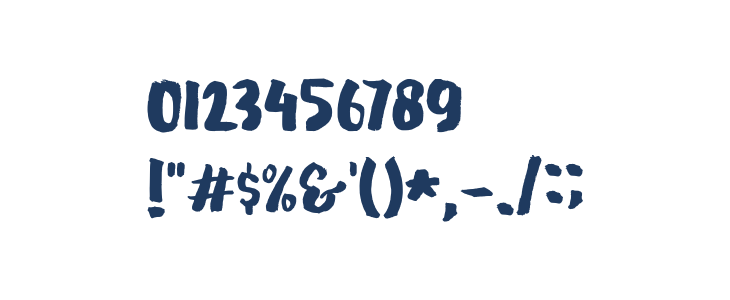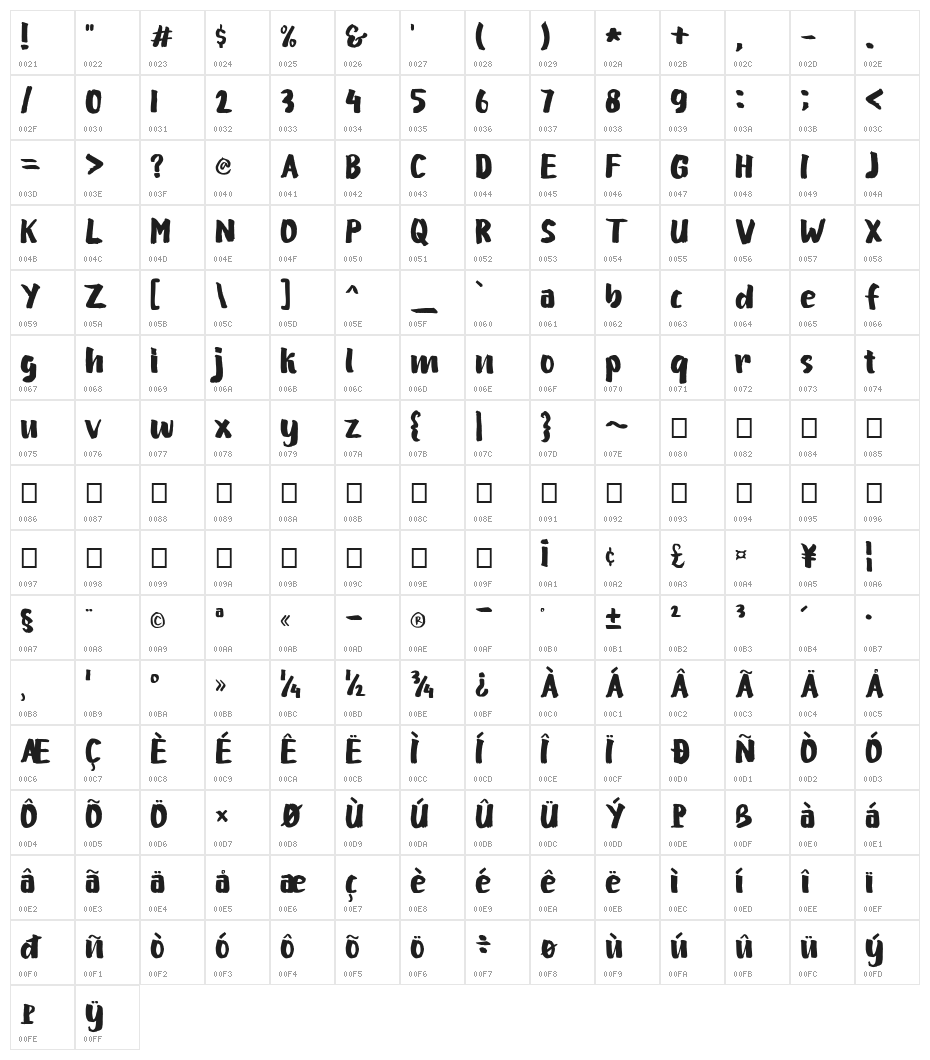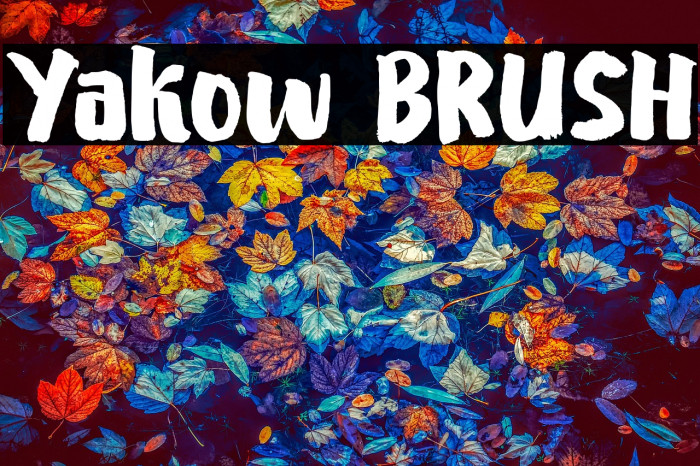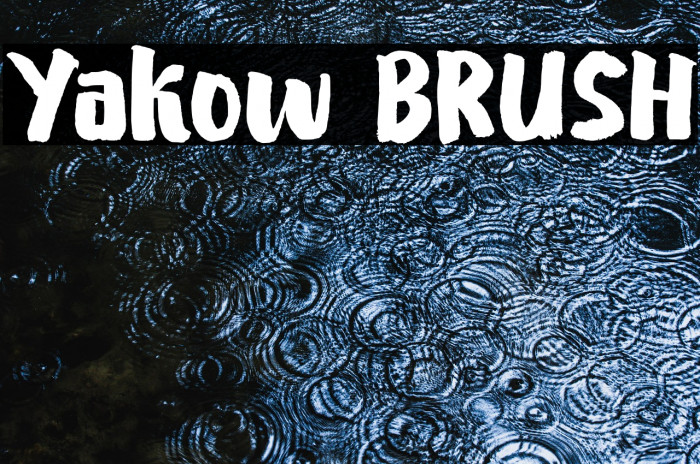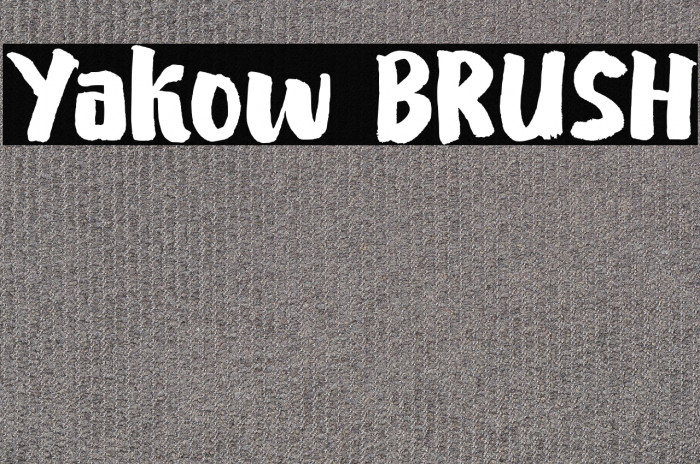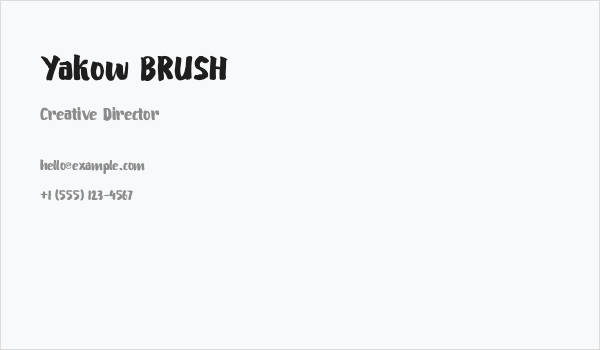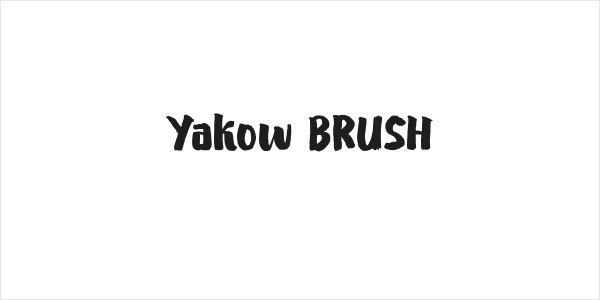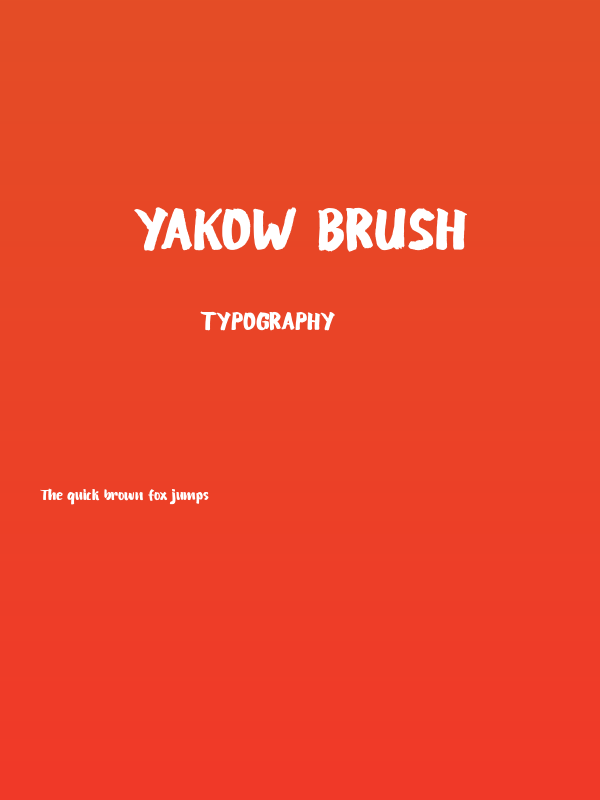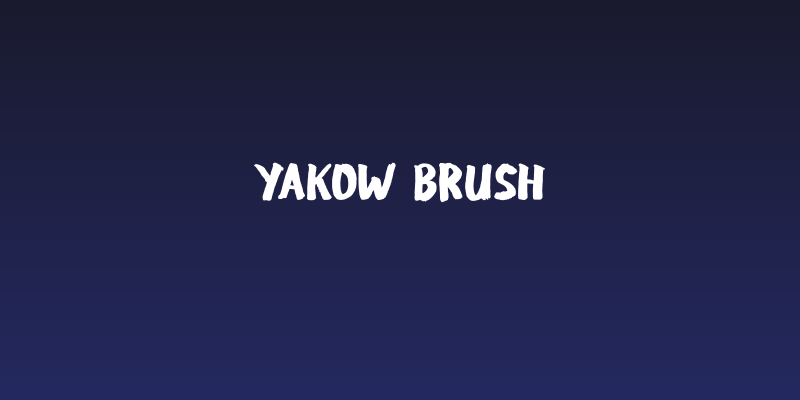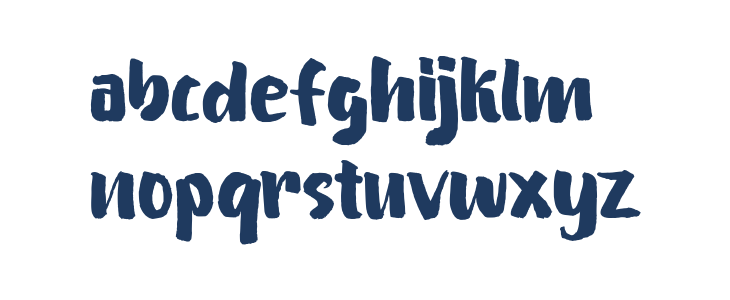
Yakow BRUSH Font
Yakow BRUSH Description
This font features a bold, brush-like style with a hand-painted appearance. The characters are thick and expressive, with uneven edges that give a dynamic and energetic feel. The uppercase and lowercase letters maintain a consistent weight, contributing to a cohesive look. The numbers and special characters follow the same bold and artistic style, making them stand out. This font is perfect for projects that require a personal touch or an artistic flair, such as posters, branding, or creative designs.
| Proposed Projects | Ideal for posters, branding, creative designs, and any project needing an artistic touch. |